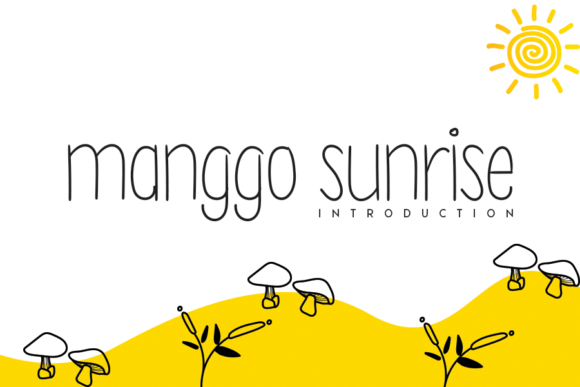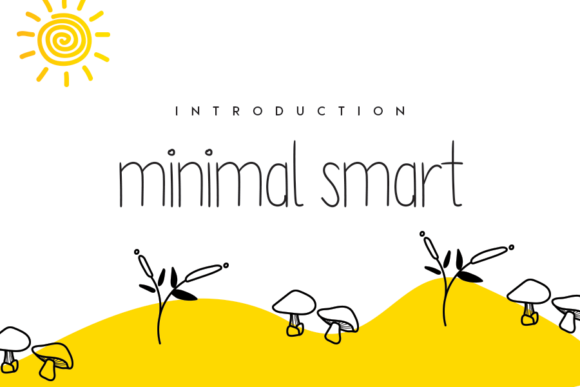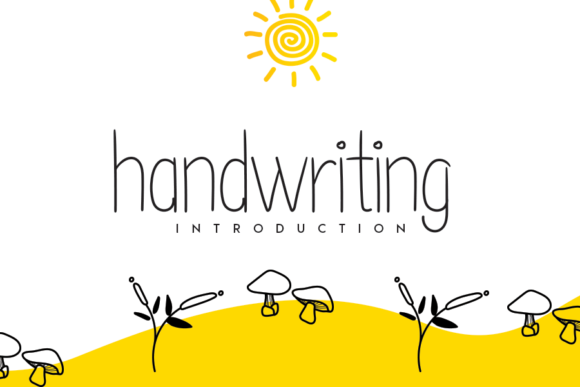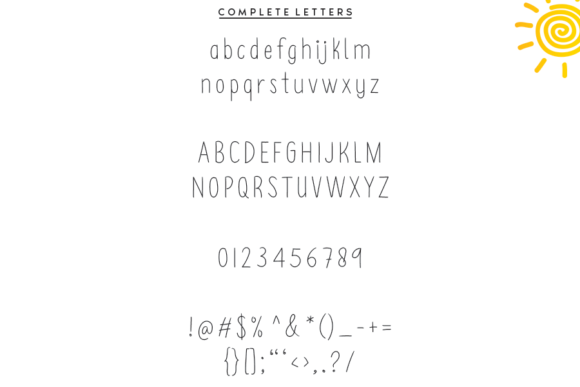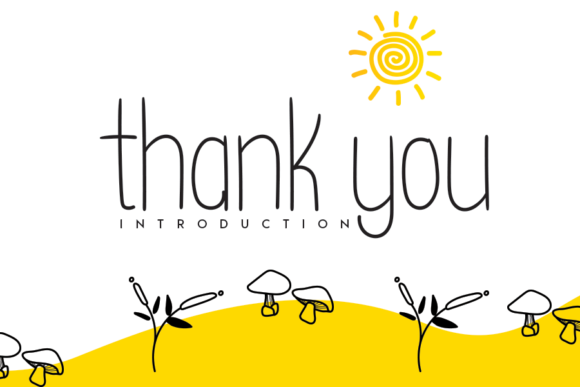
Manggo Sunrise Font
About Manggo Sunrise Font
Manggo Sunrise is a cute and quirky handwritten font. Its slim and delicate characters make this font fit a wide pool of designs.